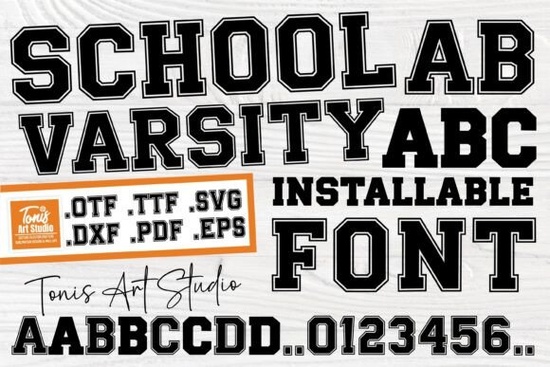
If you need a typeface that shouts team spirit and old-school athletic charm, the School Varsity font from Creative Fabrica delivers exactly that. This family gives you two looks in one: bold outlined uppercase letters and clean solid lowercase characters. The combination makes it dead simple to build lettering that feels like a classic letterman jacket or gymnasium banner without hunting for multiple font files.
Why does the varsity lettering style stay so popular?
Varsity typography never really fades because it’s tied to nostalgia, pride, and energy. Designers reach for it when they want to evoke high school sports, college game days, or retro Americana. The thick strokes and chunky outlines work equally well on a toddler’s birthday shirt and a vintage-style poster for a local band. Unlike some vintage-inspired type that leans soft and decorative, School Varsity keeps things punchy and readable at any size.
What makes the School Varsity font stand out from other blocky display fonts?
Many varsity-style fonts only offer outlined capitals, leaving you to figure out the lowercase on your own. School Varsity solves that by including solid, un-outlined lowercase letters that slot right in. This means you can write full sentences and paragraphs without the outlines turning into a blurry mess. The uppercase characters carry a sporty double-line outline that remains crisp even when scaled large for signage or apparel. It’s a practical design choice that saves time when you’re mocking up school merchandise, event flyers, or a quick DIY iron-on.
If you usually work with bold typefaces designed for children’s projects, you’ll appreciate how the lowercase letters here stay playful but not childish good for youth sports leagues, school fairs, or scout troop branding.
Which projects benefit most from a font like School Varsity?
The real question is what can’t you do with it. Because the font includes cut file formats, it slots directly into the workflow of anyone running a Cricut or Silhouette machine. Here are a few places where it really shines:
- Team apparel and spirit wear – design hoodies, caps, and jerseys with that authentic athletics look.
- Homecoming or pep rally posters – the large outlined letters grab attention across a crowded hallway.
- DIY gift tags and greeting cards – layer the solid lowercase over the outlined uppercase for quick contrast.
- Small business branding – barbershops, burger joints, and throwback sports bars love this aesthetic.
- Scrapbooking and memory keeping – capture game day photos with matching titles.
When you need something with a completely different texture, a font like industrial-strength lettering might work better for metallic or grunge themes, but for pure sports energy, School Varsity holds its own.
How to pair School Varsity with other typefaces
Because the uppercase is so commanding, you usually want a restrained partner font. Try a neutral sans-serif for body copy on flyers or event programs. If you’re creating a retro-themed design, you can lean into the nostalgia by pairing School Varsity with a more playful retro option that adds groovy charm without competing. Hand-drawn fonts like Trup Tomp also work well they bring a human, rough-edged feel that makes the clean varsity outlines pop even more. The trick is to let one font steer the visual weight while the other supports.
What buyers often overlook before purchasing a display font
Before you grab it, double-check that the outlined uppercase is what you want for all-caps text. If you only use uppercase, every letter will be outlined, which can look heavy on a full-page title. Also, the lowercase is intentionally simpler this isn’t a connected script, it’s a bold sans in its solid form. For some users, that contrast is the whole appeal; for others, a single-style outline font might be better. Test the preview on Creative Fabrica to see how your specific text looks in context.